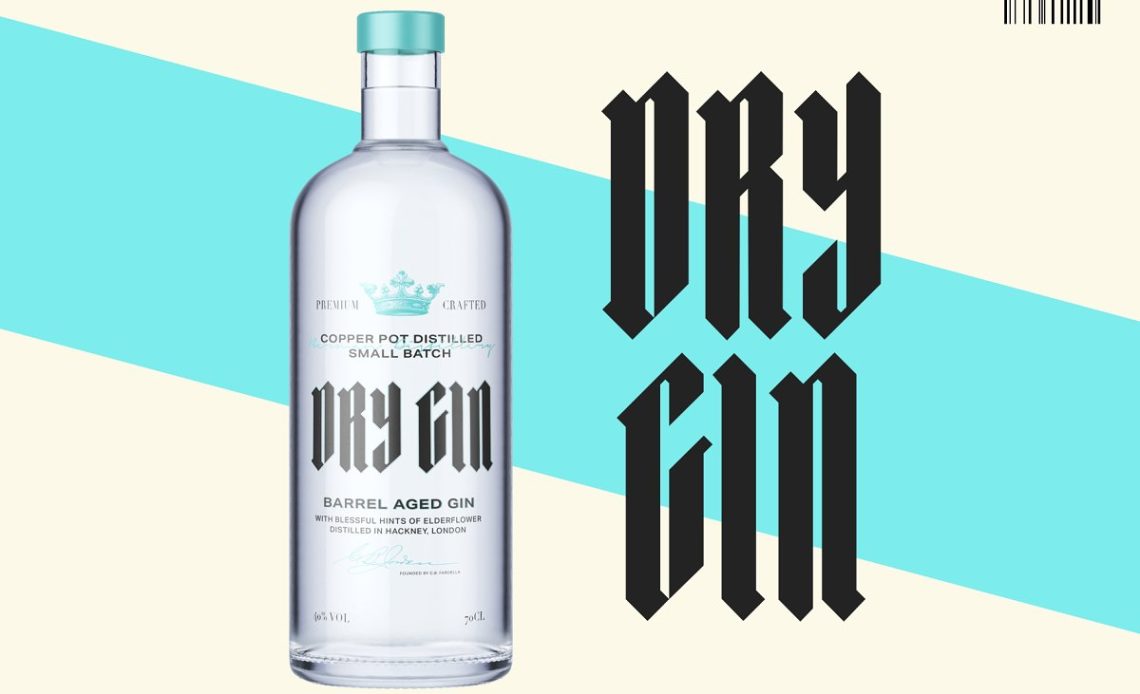
Introducing BERMAN BOLD - a modern blackletter typeface created by Glyph 44 that promises to add a unique touch to your next project. Inspired by contemporary design and the old English Gothic Scriptures, BERMAN BOLD offers a stylish and sophisticated option for your design needs.
As one of the best fonts for blog headers, BERMAN BOLD is an excellent choice for bloggers who want to make a bold statement. This typeface stands out and catches the eye, helping you attract and retain readers.
BERMAN BOLD comes with both uppercase and lowercase letters, as well as numerals and punctuation, giving you over 100 unique characters to play with. It is an excellent choice for decorative display fonts in editorials or packaging designs, offering a touch of elegance and sophistication to any project.
This blackletter font is perfect for those who want to showcase their creativity and bring their design ideas to life. Whether you're designing a website, creating packaging for a product, or working on an editorial project, BERMAN BOLD will give your design the edge it needs to stand out from the crowd.